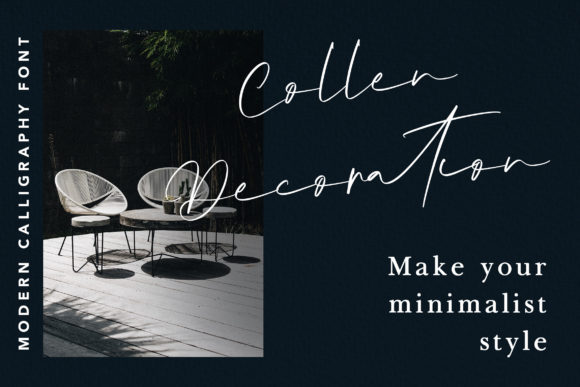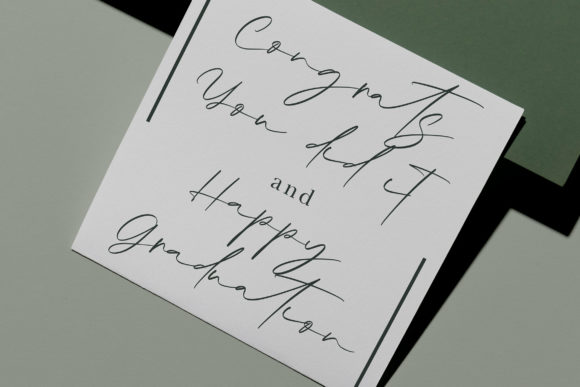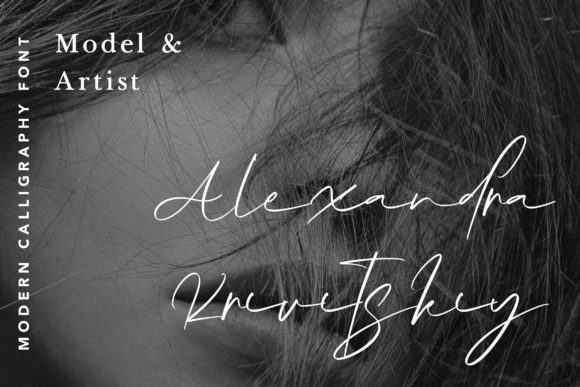
Introduction to Nathaly Couple Font
Have you ever been browsing through a design blog or social media and stumbled upon a beautifully crafted project that makes you want to create something just as stunning? For many designers, that moment of inspiration is what drives them to push the boundaries of creativity. And that’s exactly what the Nathaly Couple Font is all about – providing a high-quality design resource that enhances the beauty of your projects.
| 👤 Author | Hatf Type |
As a versatile and elegant script font, Nathaly Couple Font is the perfect addition to any creative project. With its contemporary atmosphere and impeccable form, this font is designed to make your work stand out. Whether you’re working on a design project with a transparent background or need a font that’s easy to read, Nathaly Couple Font is a valuable asset for designers looking to elevate their work.
Key Features of Nathaly Couple Font
- High-quality font designed for creative projects, ideal for a design resource.
- This font features a unique, cursive script with a romantic and elegant feel, perfect for wedding invitations, love letters, and other creative projects.
- The Nathaly Couple Font is a high-quality design resource that can add a touch of sophistication and elegance to any creative project.
Honest Review: Nathaly Couple Font
I recently stumbled upon the Nathaly Couple Font, and I’m excited to share my thoughts on this design resource. As a designer, I appreciate high-quality fonts that can elevate my creative projects. The Nathaly Couple Font is a beautiful, hand-drawn font that’s perfect for romantic and elegant designs.
What works well: ✨ The font has a lovely, cursive script that’s ideal for titles, headings, and quotes. The transparent background makes it easy to combine with other design elements. The font’s versatility allows it to be used in various creative projects, from wedding invitations to love stories.
- ✨ Beautiful, hand-drawn design
- ✨ Transparent background for easy layering
- ✨ Perfect for romantic and elegant designs
Limitations: ⚠️ The font is limited to uppercase and lowercase letters, which may not be suitable for designs that require extensive text blocks. Additionally, the font’s complexity might make it difficult to use for beginners.
Overall impression: I’m impressed with the Nathaly Couple Font’s unique design and versatility. While it has some limitations, it’s a valuable addition to any designer’s toolkit. If you’re working on a creative project that requires a beautiful, elegant font, I highly recommend giving the Nathaly Couple Font a try. And the best part? It’s a free download, making it an excellent resource for designers on a budget.
Tips for Getting the Most Out of Nathaly Couple Font
For optimal results, pair the Nathaly Couple Font with complementary colors and design elements. Experiment with different font sizes and styles to achieve a unique look that suits your creative project.
The Nathaly Couple Font is suitable for a wide range of creative projects, including wedding invitations, social media graphics, and marketing materials. Its high-quality design and transparent background make it an ideal choice for designers seeking a versatile and stylish font.